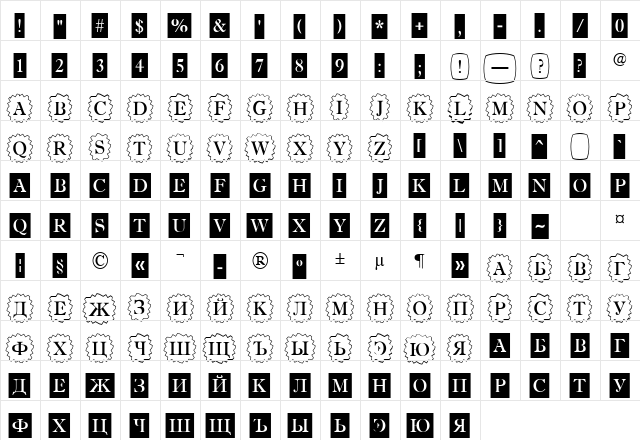
a_AntiqueTrdCmDc3Cb Regular
Design Context for a_AntiqueTrdCmDc3Cb Typeface
a_AntiqueTrdCmDc3Cb has the warm character of retro typography — evoking diners, record sleeves, and the golden age of print advertising.
Font Pairing: Combine a_AntiqueTrdCmDc3Cb with a simple slab or neutral sans — period-accurate companions reinforce the vintage feel without competing for attention.
Pro Tip: Lean into a_AntiqueTrdCmDc3Cb's period character by pairing it with aged paper textures, muted colour palettes, and vintage illustration styles.